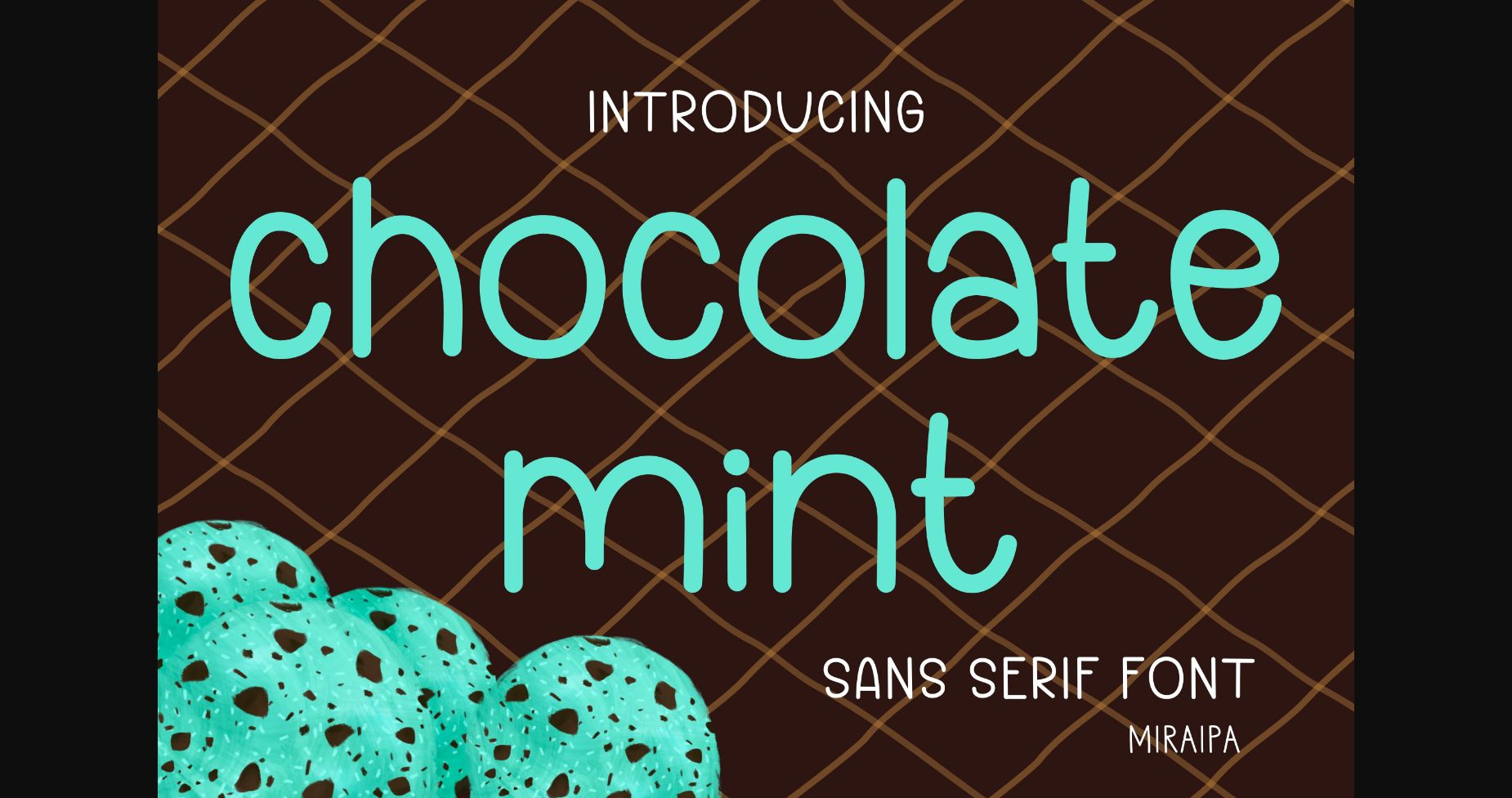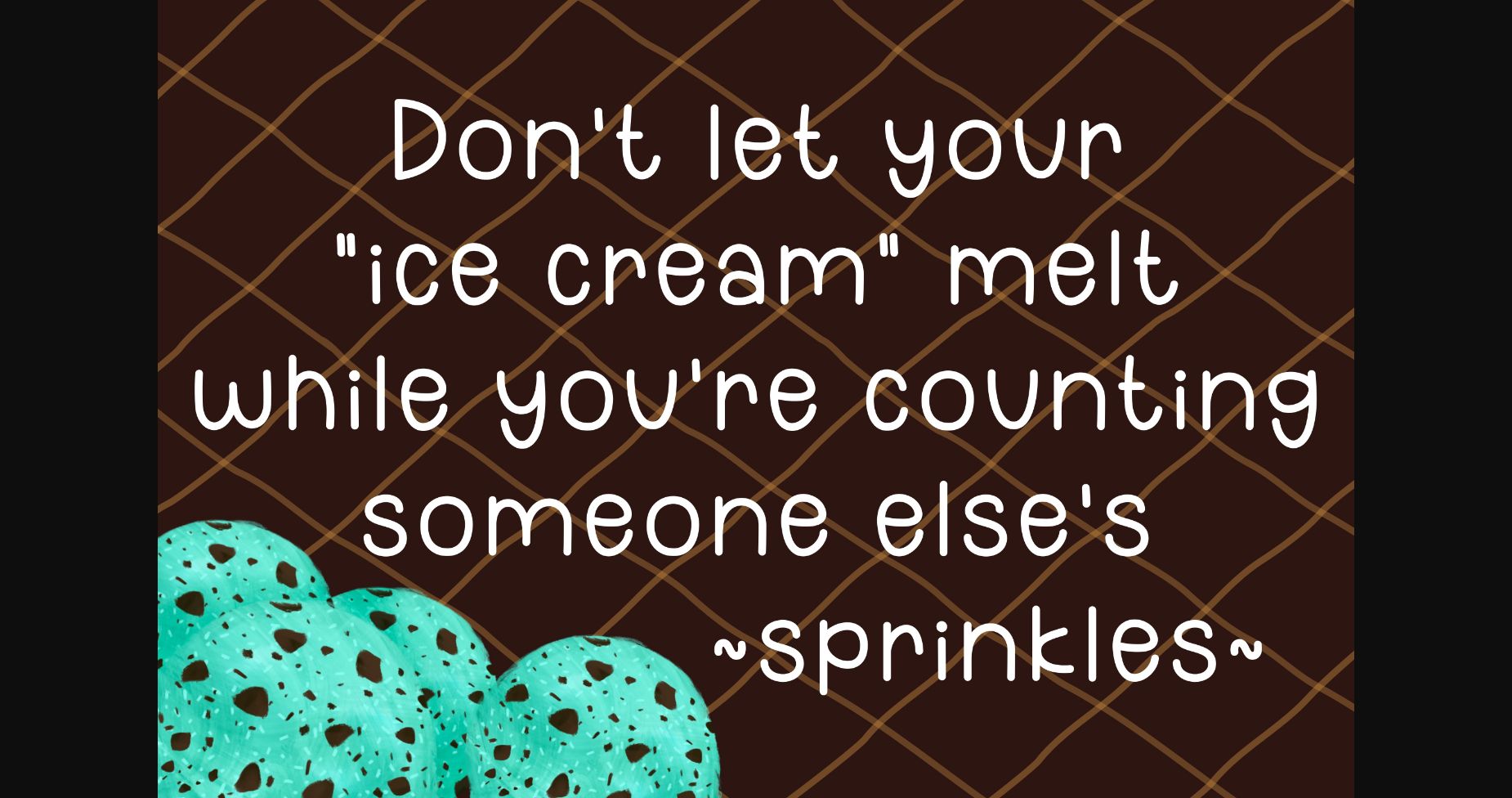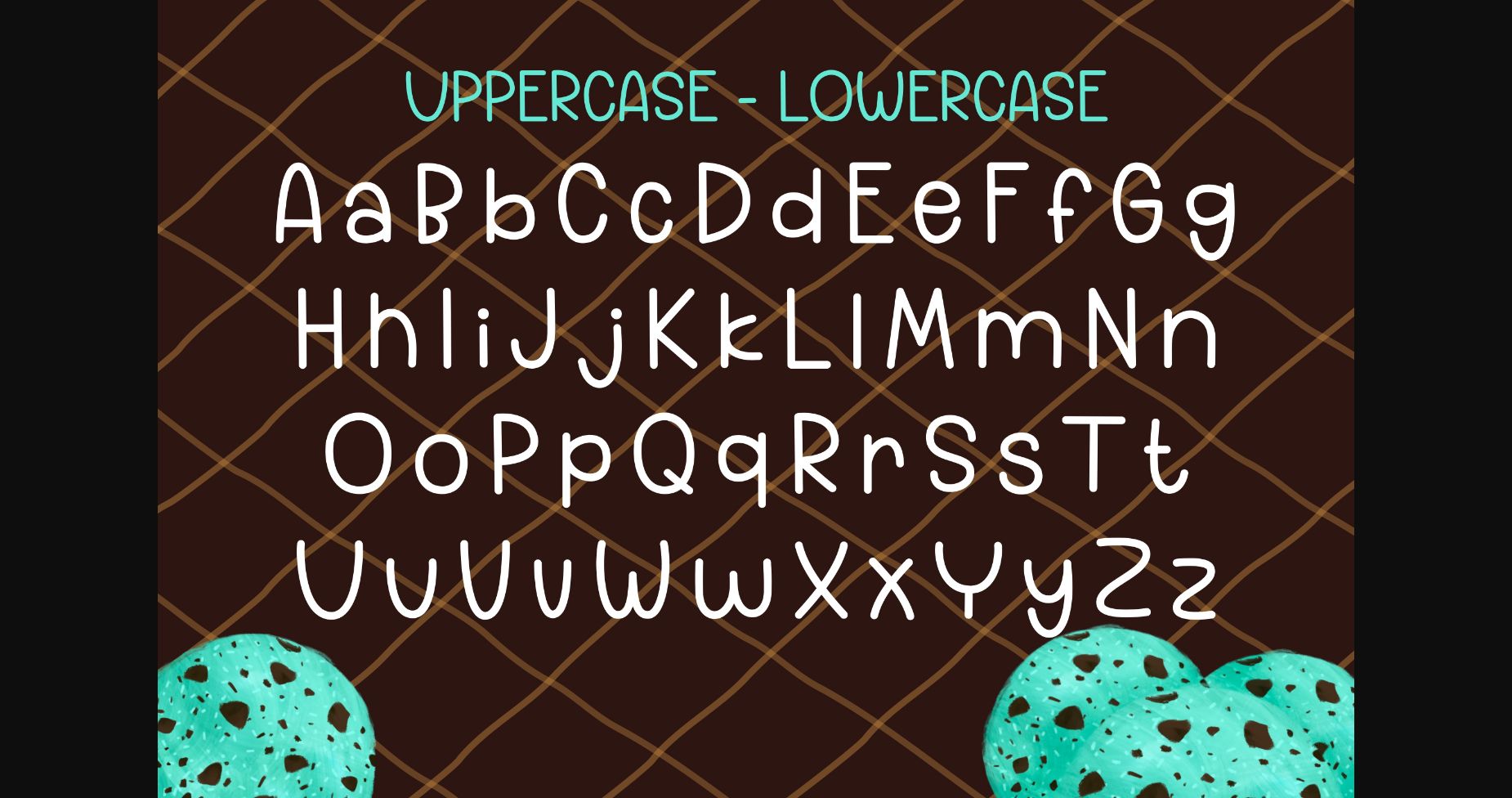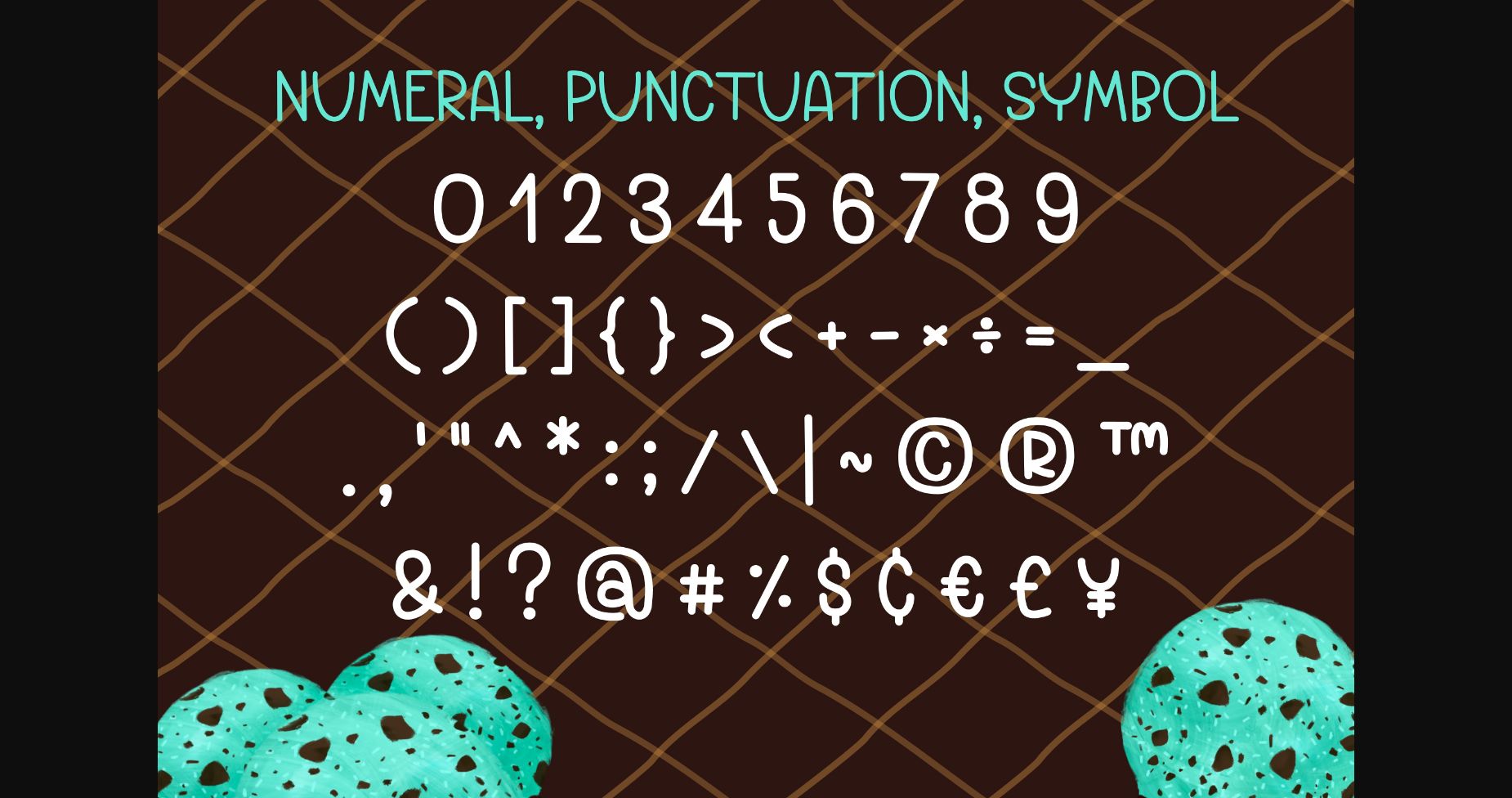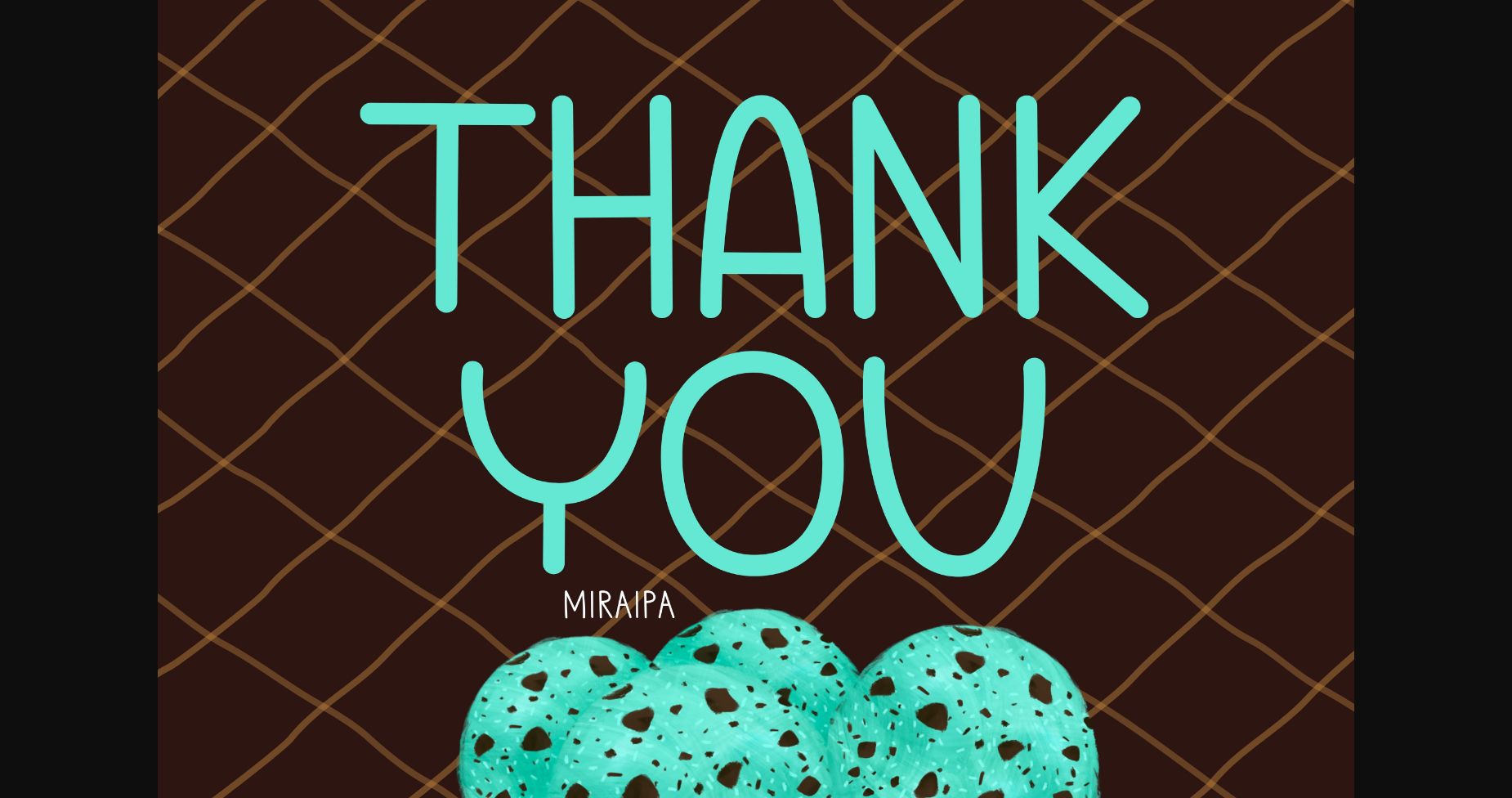
Chocolate Mint Font
About Chocolate Mint Font
Chocolate Mint is a sweet and casual sans serif font. It has beautiful and well-balanced characters and as a result, it matches a wide pool of designs.